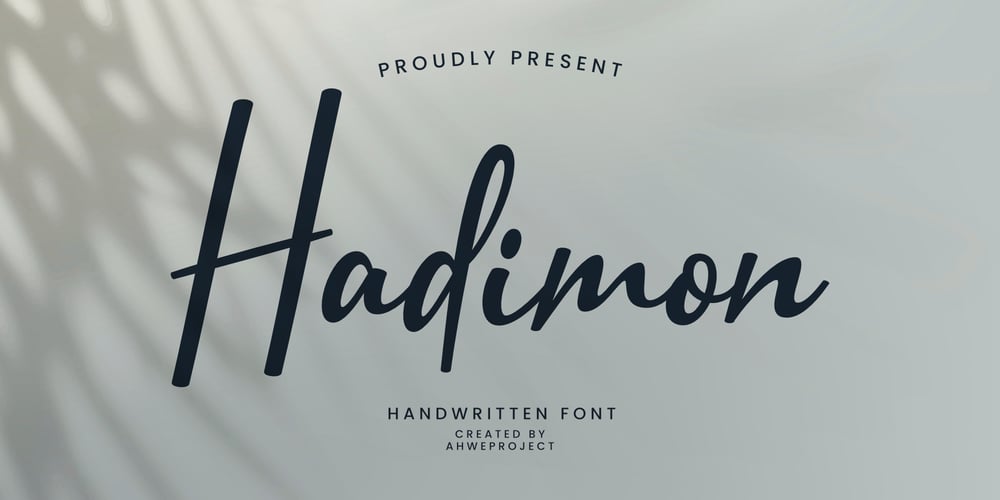
Hadimon Font Family was designed by Dida Ahluddin and published by ahweproject. Hadimon contains 1 styles and family package options. Hadimon is a beautiful and refined script font. It has a classy, elegant and modern look that can be used for logos, branding, invitations, stationery, wedding designs, social media posts, and much more! Hadimon is PUA encoded which means you can access all of the amazing glyphs and ligatures with ease!